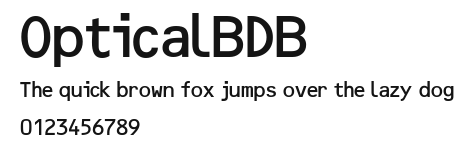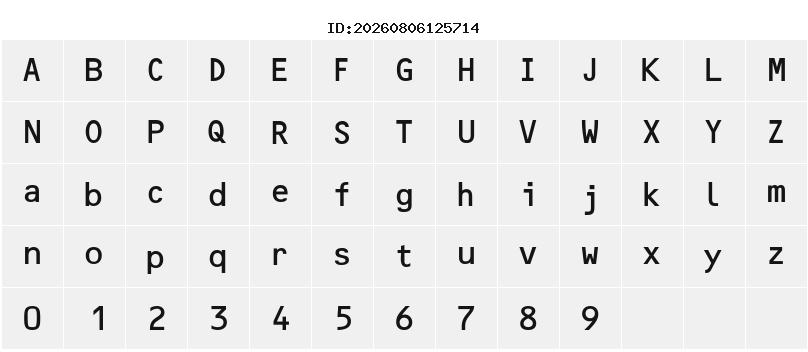
• Font Name: OpticalBDB
• Font ID: Altsys Fontographer 4.0.3 OpticalBDB Normal
• Full Font Name: OpticalBDB Normal
• Version: Altsys Fontographer 4.0.3 8.9.1994
• PostScript Name: OpticalBDBNormal
• Character Count: 167
• Copyright: Copyright by Christine Mauerkirchner und Rainer Grunert
About OpticalBDB.ttf
OpticalBDB.ttf is a modern, elegant sans-serif font designed for ultimate readability and visual harmony. Perfect for branding, headlines, web design, and print materials.